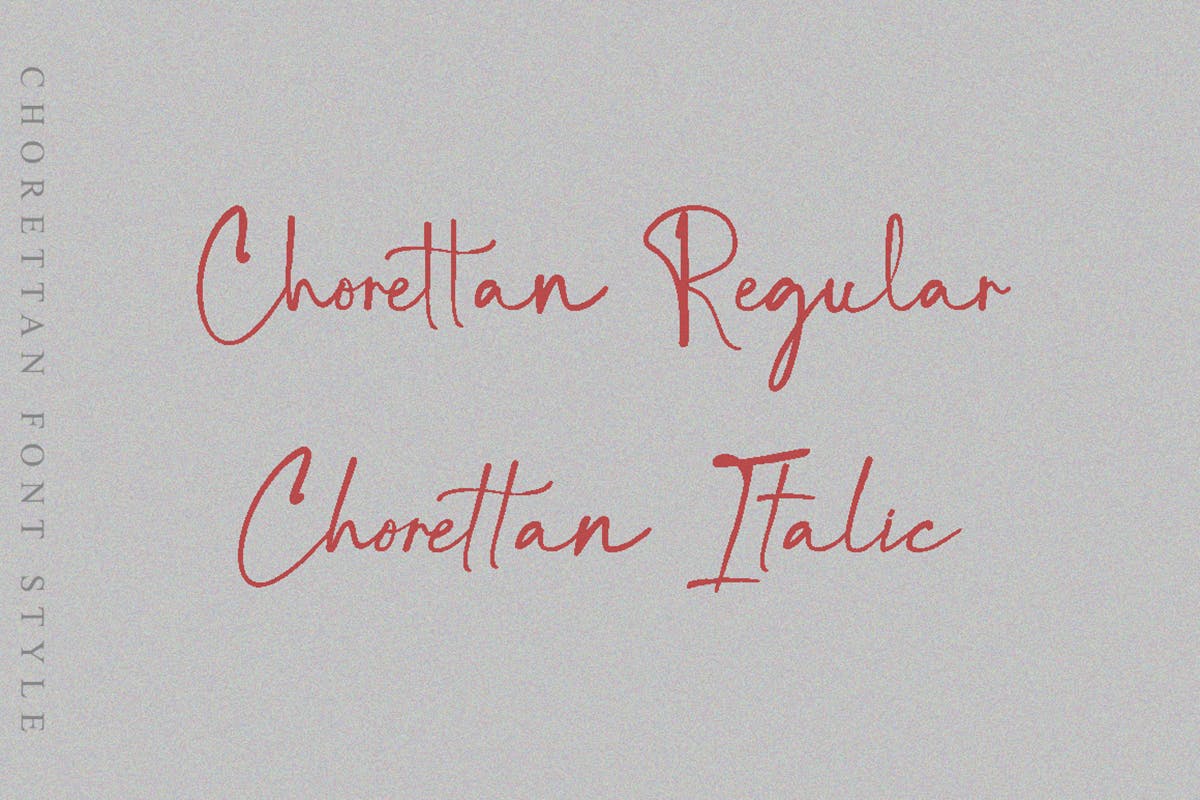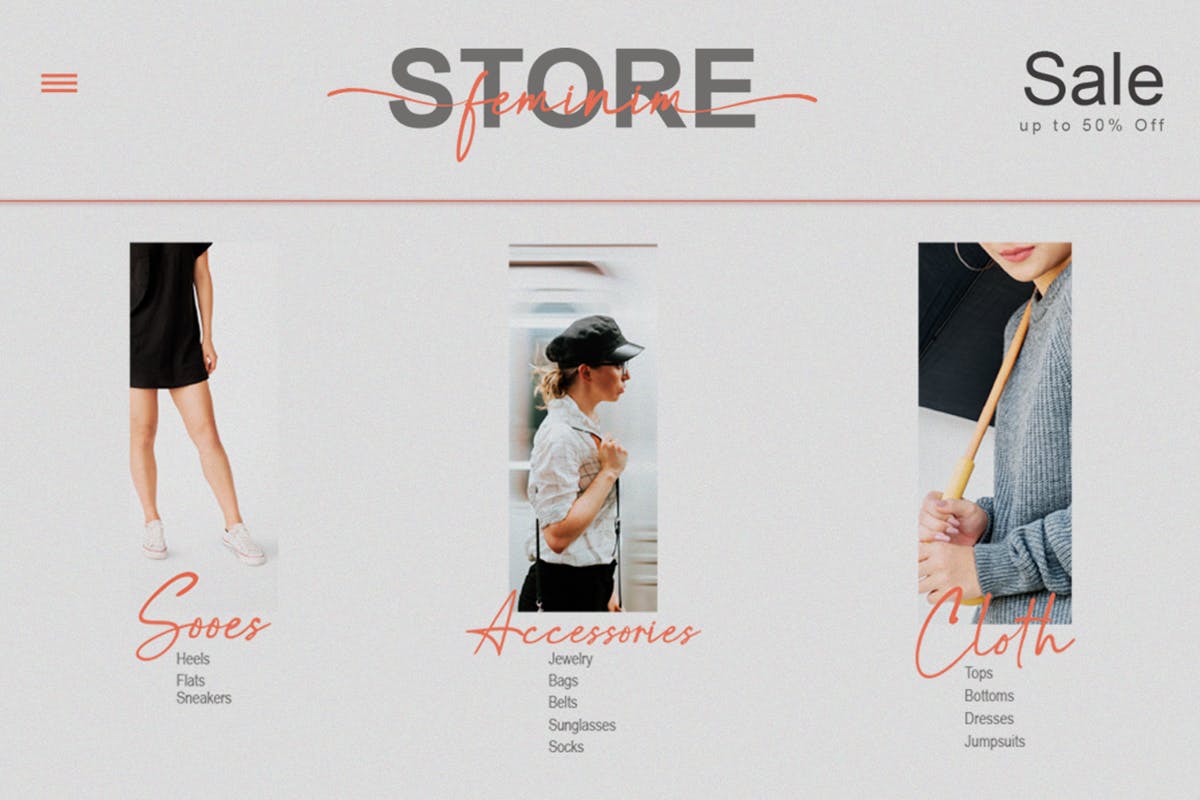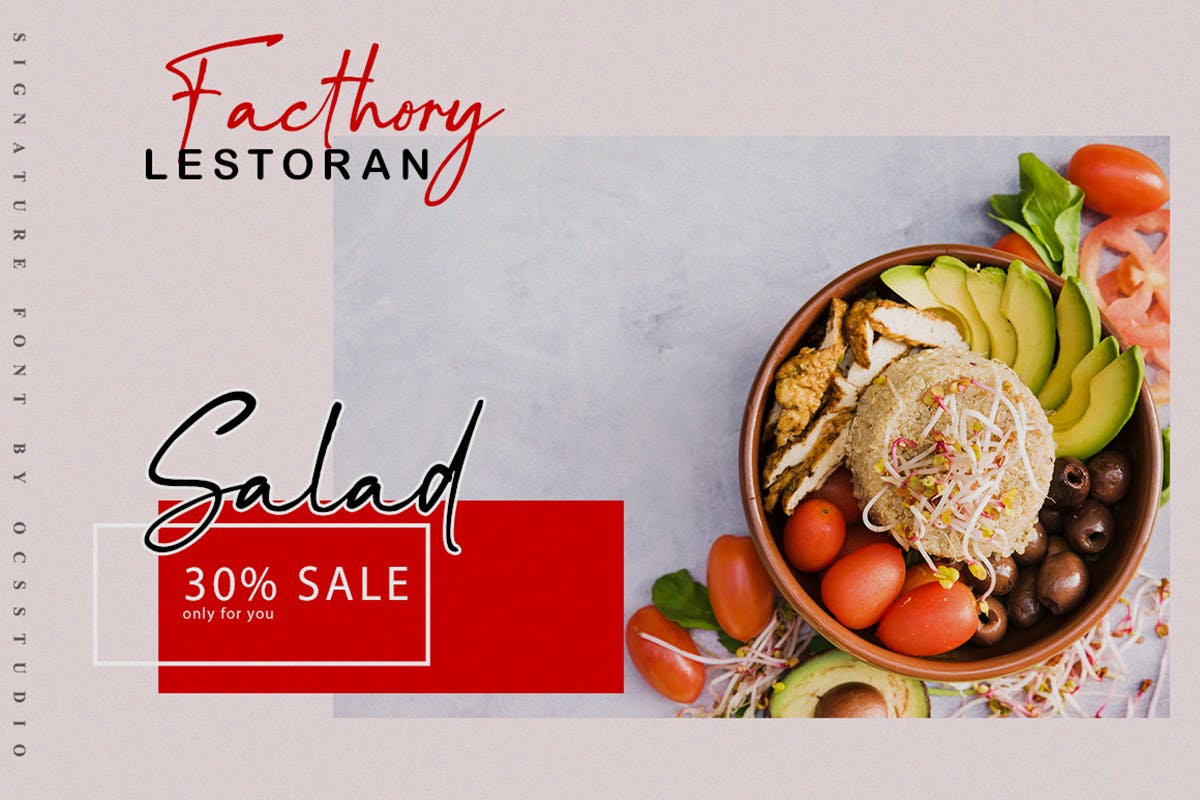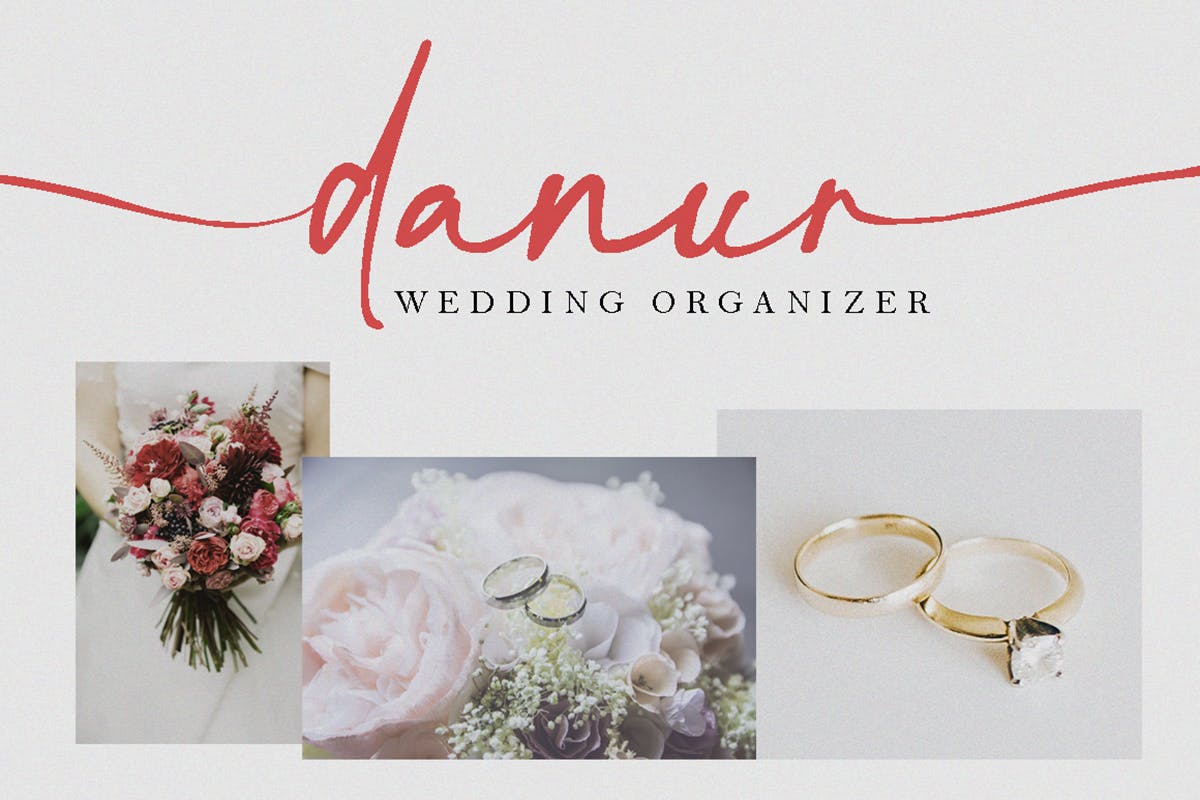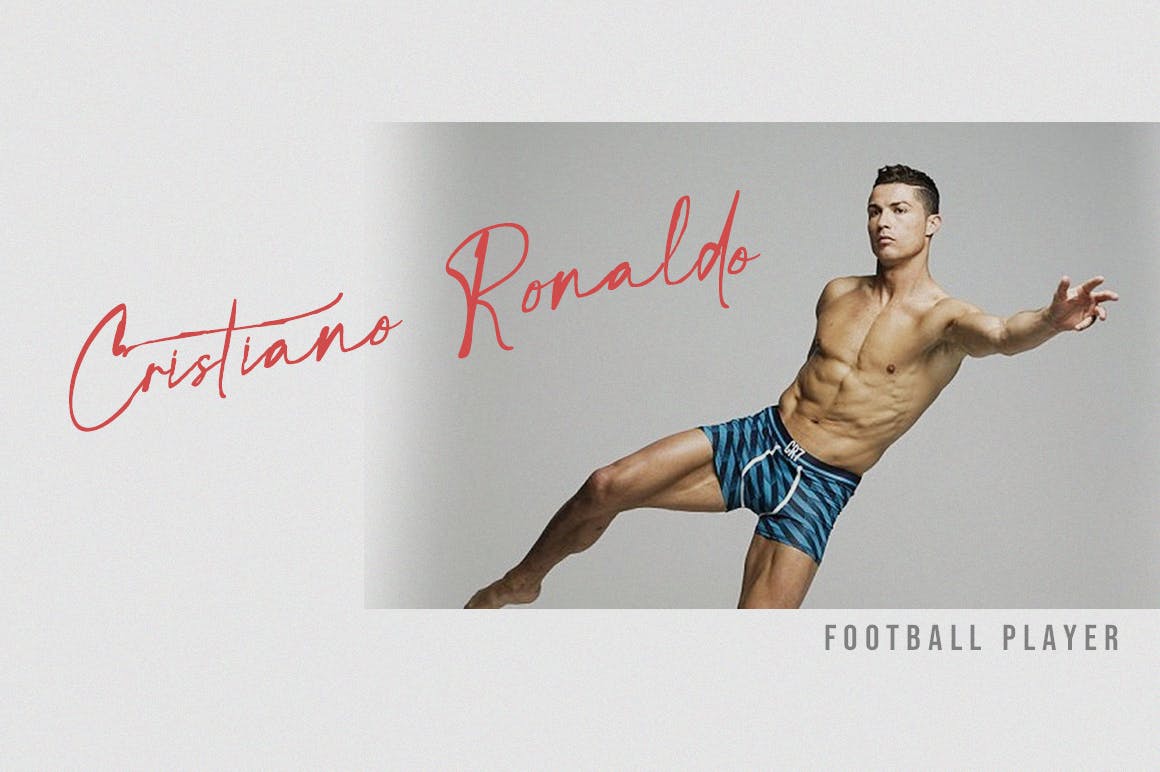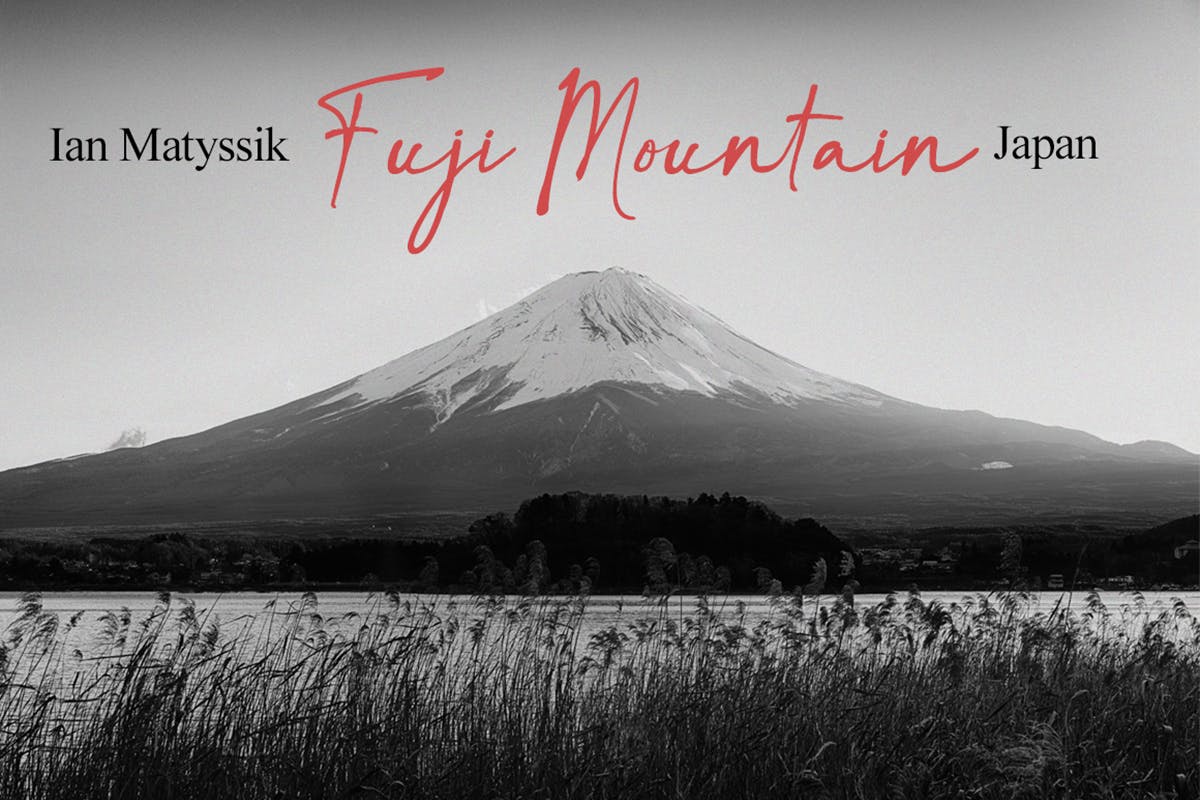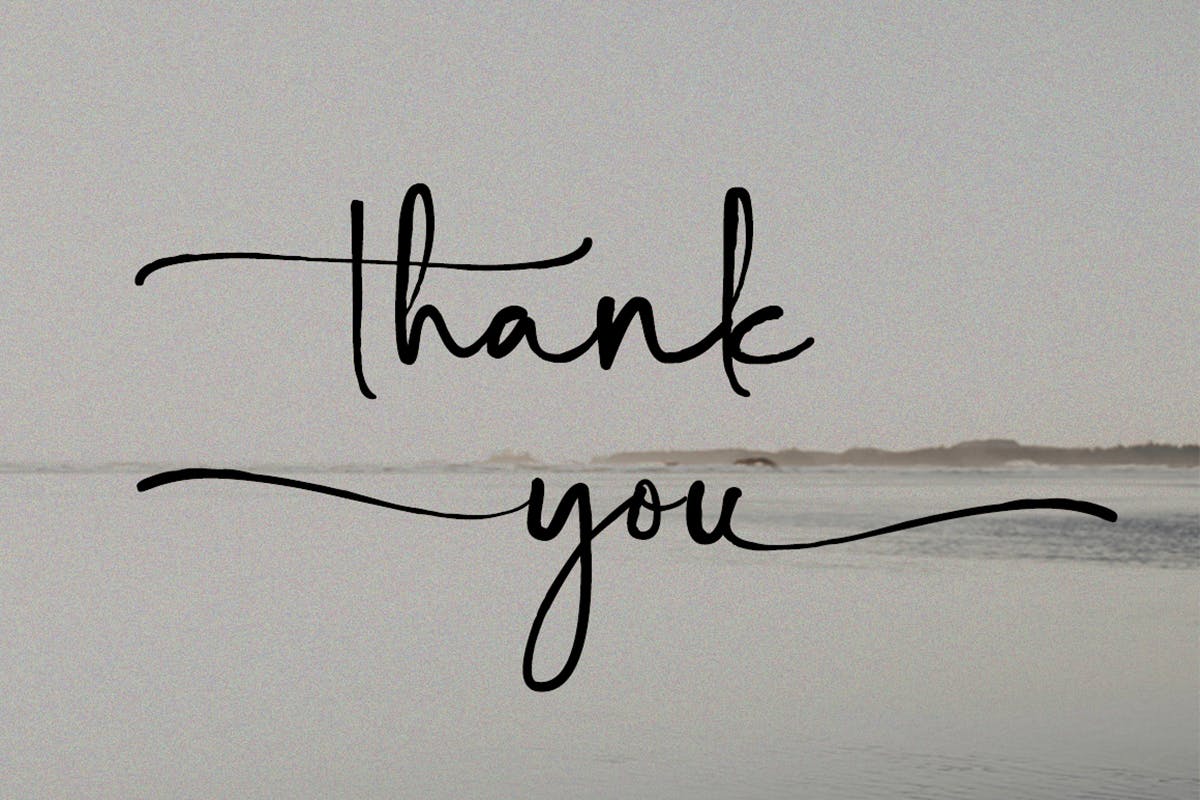
Free Chorettan Script Font
Free Chorettan Script Font is an elegant signature font. It is perfect for branding, wedding invitations, cards, social media, and more. This font zipped with two styles of font which is regular and italic with TTF format file. However, you can use this demo font only for personal and you just get one style. But, if you need to use it on commercial projects and get more features, go purchase the premium version.